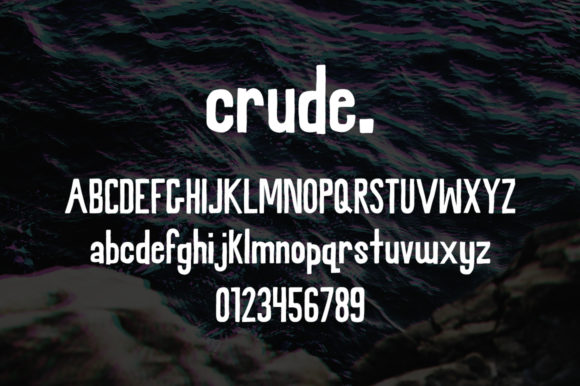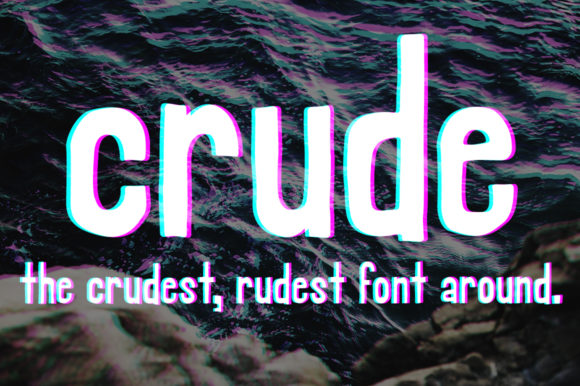
Introducing Crude Font: Adding a Touch of Imperfection to Your Designs
Are you tired of using the same old sleek and polished fonts in your designs? Do you want to add a touch of organic and handmade feel to your work? Look no further than Crude Font, a fun and bold font that’s perfect for designers and crafters looking to add some personality to their projects.
The Charm of Imperfection
Crude Font is a unique and quirky font that’s characterized by its many perfect imperfections. Unlike traditional fonts that strive for precision and uniformity, Crude Font celebrates the beauty of handmade and rough-around-the-edges design. Each letter and symbol has been carefully crafted to have a distinct, hand-rendered feel that’s sure to add a touch of warmth and personality to your designs.
Key Features of Crude Font
- Bold and Fun**: Crude Font is a bold and attention-grabbing font that’s perfect for headlines, titles, and other design elements where you want to make a statement.
- Organic and Handmade**: With its rough and imperfect texture, Crude Font has a distinctly handmade feel that’s perfect for designers and crafters who want to add a touch of authenticity to their work.
- Highly Versatile**: Whether you’re designing a logo, a poster, or a social media graphic, Crude Font is a versatile font that can be used in a wide range of design applications.
- Easy to Read**: Despite its bold and imperfect texture, Crude Font is surprisingly easy to read, making it perfect for designs where you need to communicate a message clearly and effectively.
Who is Crude Font for?
Crude Font is perfect for designers and crafters who want to add a touch of personality and whimsy to their work. Whether you’re a:
- Graphic Designer: Looking for a unique and attention-grabbing font to use in your designs.
- Crafter: Wanting to add a touch of handmade charm to your DIY projects.
- Marketer: Needing a bold and eye-catching font to use in your marketing materials.
- Artist: Seeking a font that reflects your artistic and creative personality.
How to Use Crude Font in Your Designs
Using Crude Font in your designs is easy. Here are a few tips to get you started:
- Use it as a Headline Font: Crude Font is perfect for headlines and titles, where its bold and attention-grabbing texture can really shine.
- Pair it with Other Fonts: Crude Font can be paired with a wide range of other fonts to create a unique and visually appealing design.
- Experiment with Colors and Textures: Don’t be afraid to experiment with different colors and textures to really make Crude Font pop.
Crude Font is a unique and versatile font that’s perfect for designers and crafters looking to add a touch of personality and whimsy to their work. With its bold and imperfect texture, Crude Font is sure to add a touch of handmade charm to any design. So why not give it a try and see how it can elevate your designs to the next level?